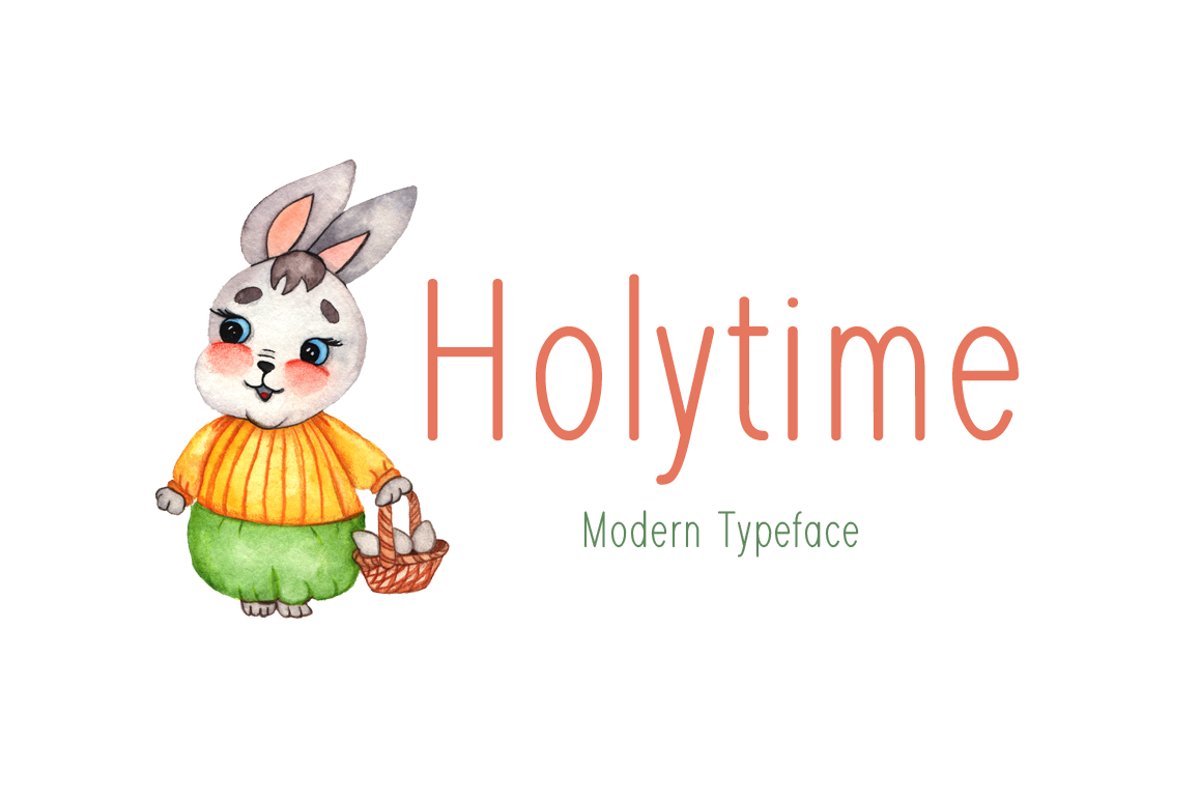
Introducing Holytime!
Holytime is a brand new modern font. Holytime is perfectly suited for stationery, logos, t-shirt, paper, print design, website header, photo frame, flyer, music cover, poster, image slider and much more.